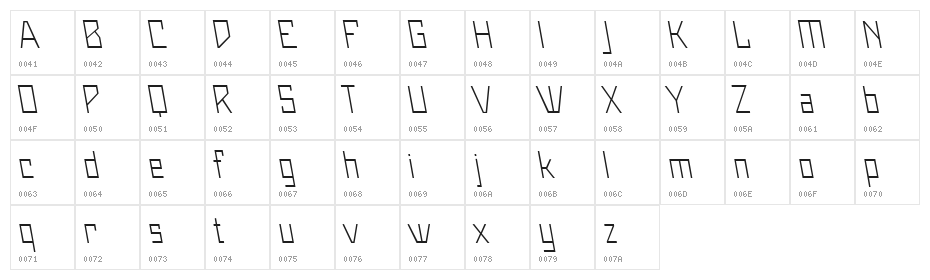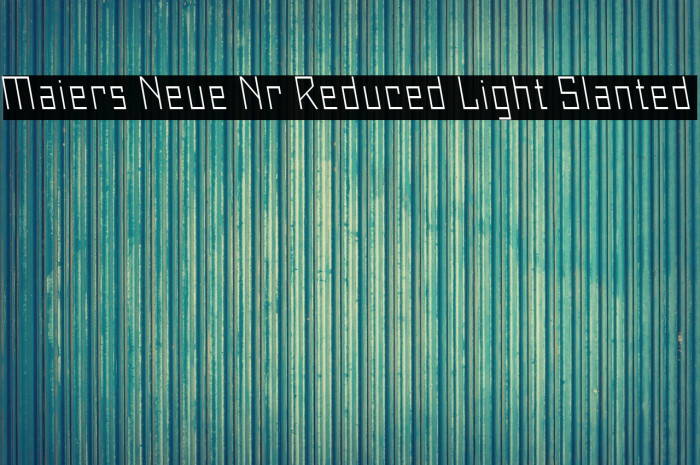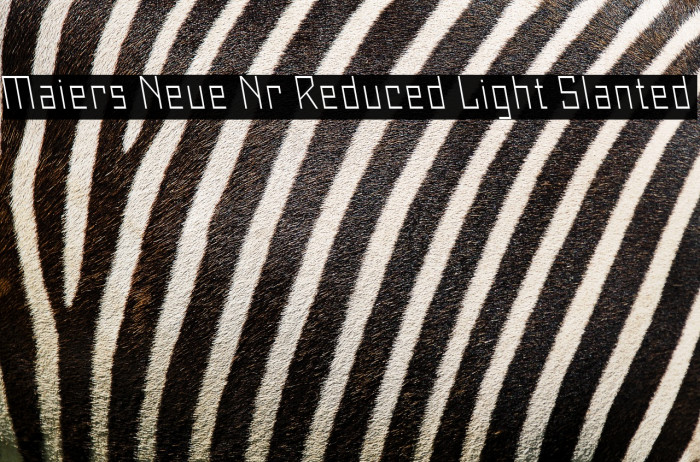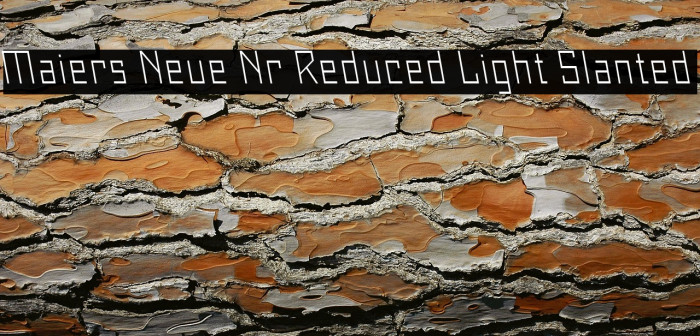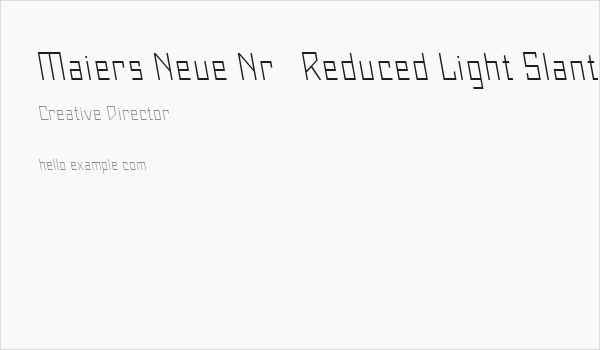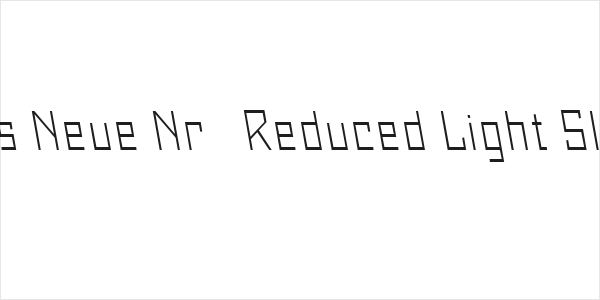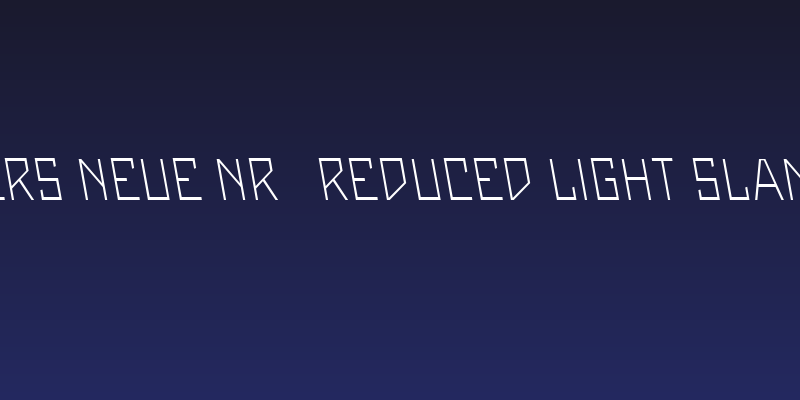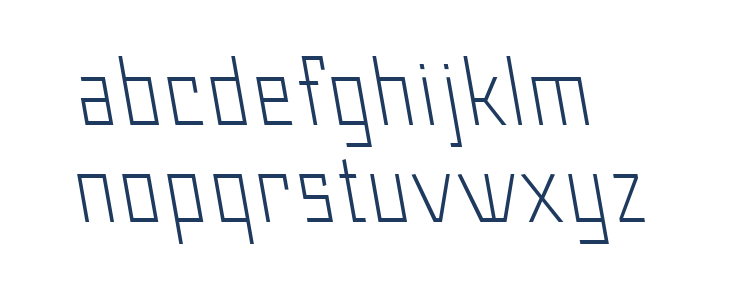
Maiers Neue Nr.8 Reduced Light Slanted Font
Maiers Neue Nr.8 Reduced Light Slanted Description
This font features a geometric and angular design, characterized by its sharp edges and clean lines. The letters are constructed with a consistent stroke width, giving it a uniform appearance. The uppercase and lowercase letters maintain a similar height, contributing to a cohesive look. The font has a modern and futuristic feel, with a slight slant that adds a dynamic touch. The characters are well-spaced, ensuring readability while maintaining a distinct style. This font is suitable for projects that require a contemporary and edgy aesthetic.